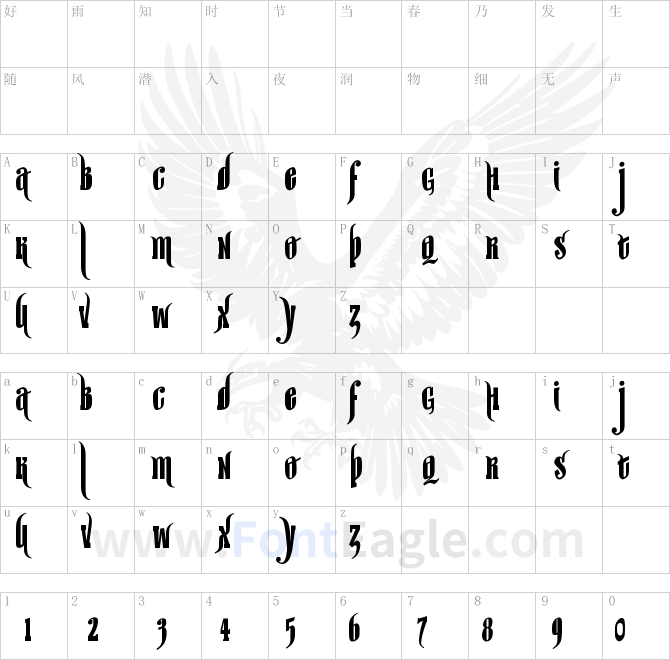
sir-william is a great font, widely used in graphic design, single-page menu design, poster design and other fields, and is deeply loved by designers.sir-william download.